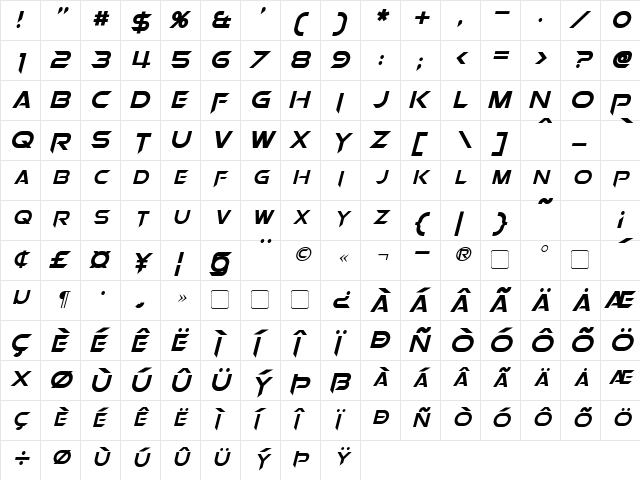
Orion Pax Italic
Design Context for Orion Pax Typeface
Orion Pax offers clean, dependable letterforms without strong stylistic allegiance, making it a practical choice for designers who need flexibility. Its italic angle brings a sense of urgency and motion to the letterforms.
Pro Tip: Use Orion Pax for emphasis, pull quotes, and subheadings where its slanted energy can add rhythm to the layout.